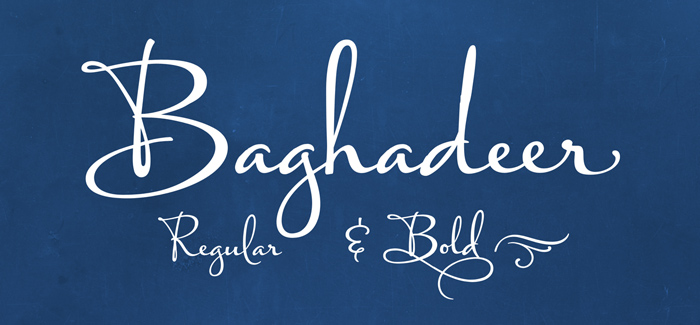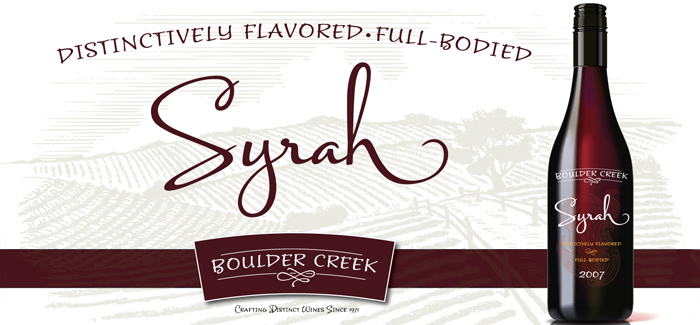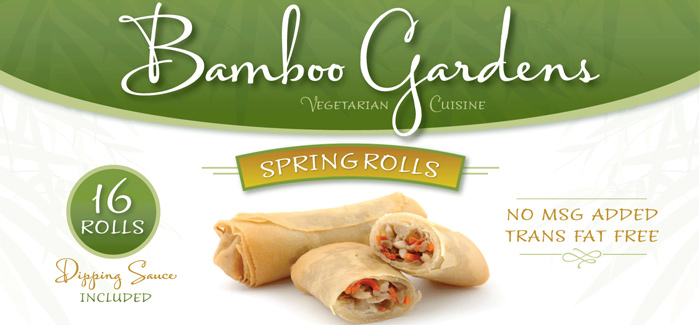
Baghadeer font
Baghadeer font is an upright connecting script hand-drawn by world famous typographer Stephen Rapp. It is sold in two separate weights each of them featuring expressive capital letters, original swashes, ligatures and alternates and a set of beautifully designed small caps. Baghadeer is recognized for its bespoke look, personality and excellent readability. It’s very useful in versatile designs like wine labels, food packages, elegant decorated headlines and greeting cards. Working with Baghadeer it’s very easy especially when you use open type features – perfectly connected letters, stylish swashes, lots of alternates – all these give you many options to individualize your text and make your design outstanding.
Designers: Stephen W. Rapp
Publisher: Stephen Rapp